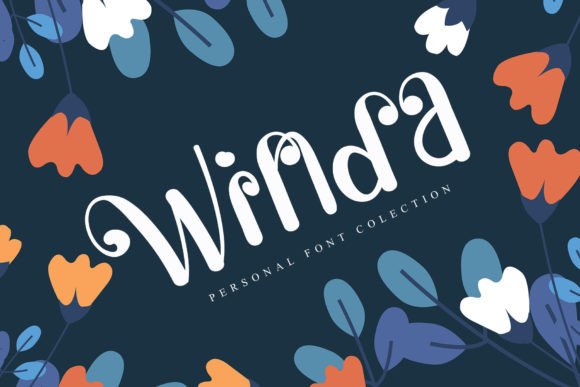
Welcome to the realm of calligraphy, where letters dance with grace and elegance. Say hello to Winda Font, a captivating script typeface that breathes life into your digital creations. Let its flowing lines and enchanting curves ignite your imagination and transform your projects into masterpieces.
Winda Font is more than just a font; it's an artistic expression that speaks volumes. Every letter is crafted with meticulous care, capturing the essence of handwritten beauty. Its delicate strokes evoke a sense of sophistication and charm, lending an air of exclusivity to your designs. Whether you're creating wedding invitations, greeting cards, or logos, Winda Font adds a touch of timeless elegance that leaves a lasting impression.
Step into the world of Winda Font and let your creativity soar. Its versatility knows no bounds. Use it to design eye-catching billboards that command attention or create business cards that exude professionalism and style. Winda Font is the perfect choice for any project that demands a handwritten touch, adding a personal flair that sets your work apart.
Winda Font isn't just a font; it's an experience. Its enchanting curves and graceful lines draw the eye, inviting viewers to immerse themselves in your designs. Let your words flow with elegance, captivating your audience with every stroke. Whether you're a seasoned designer or just starting your creative journey, Winda Font is the perfect companion for your artistic endeavors.
Elevate your designs to new heights with Winda Font. Embrace its beauty and let your creativity shine through. Each letter is a brushstroke of inspiration, waiting to be transformed into something extraordinary. Download Winda Font today and embark on a journey of artistic exploration that will leave you breathless.